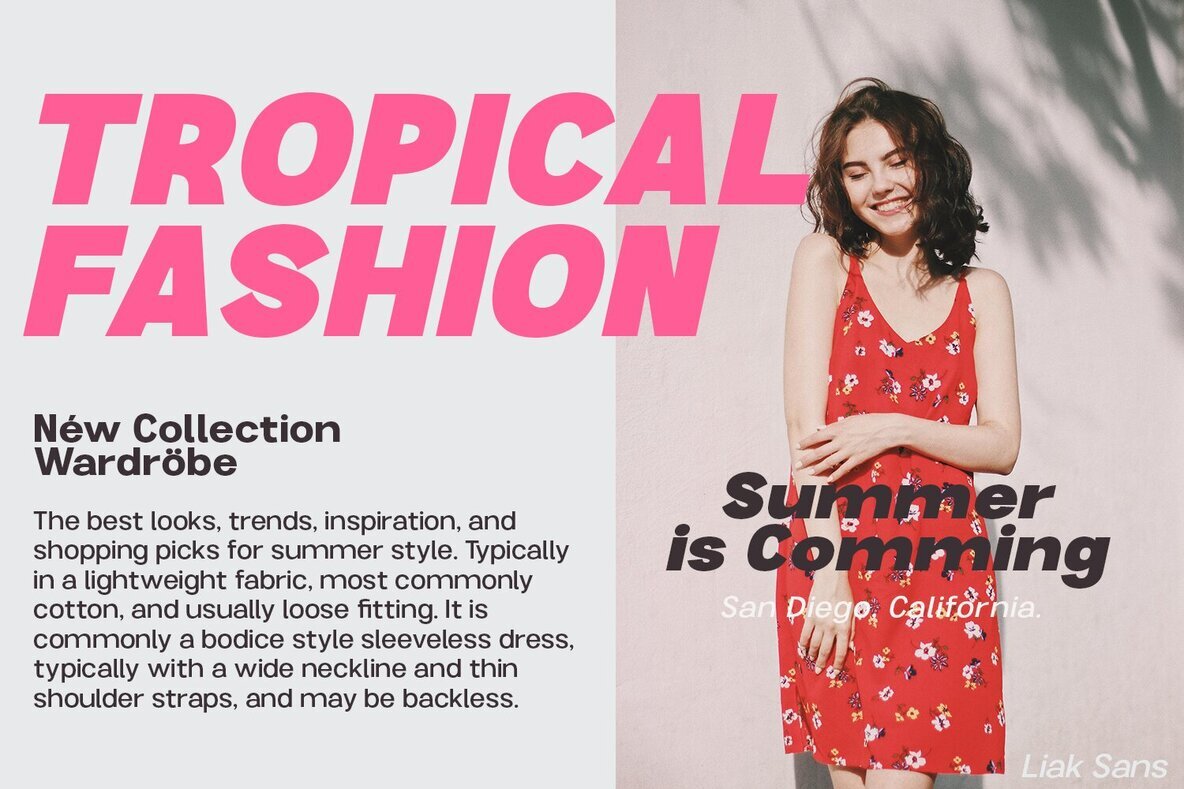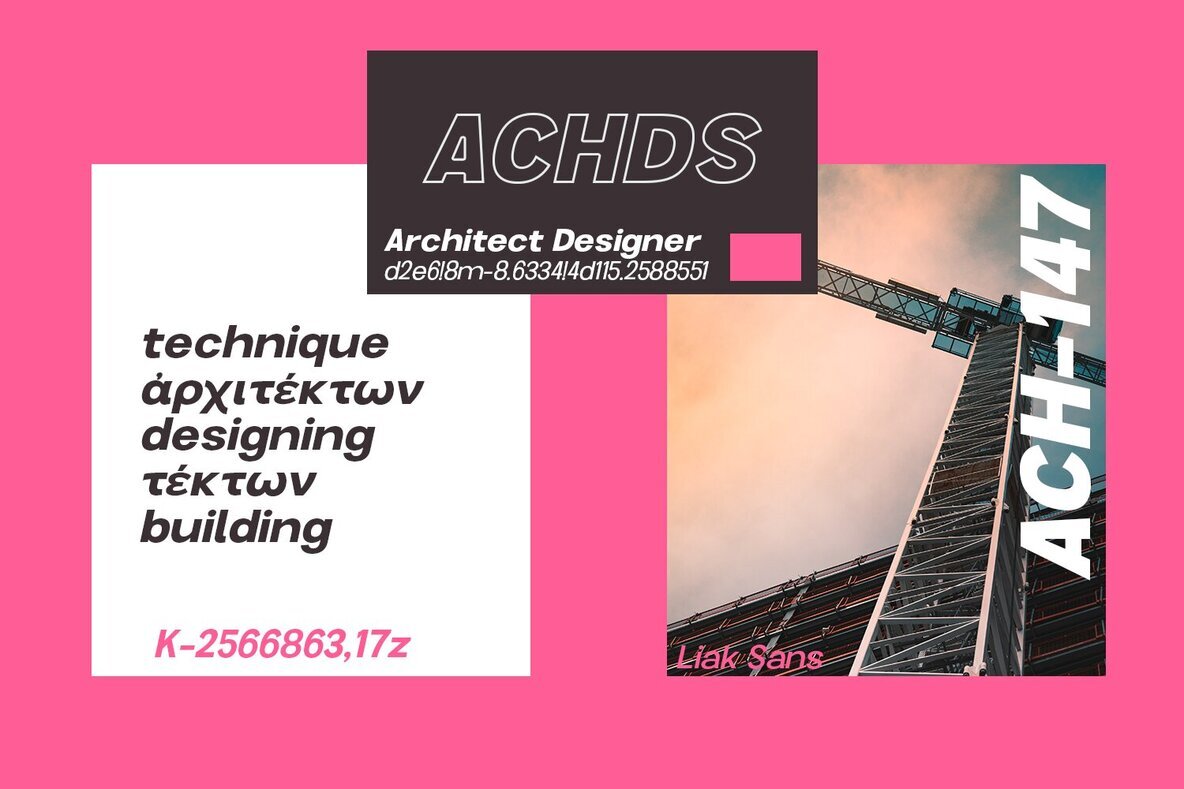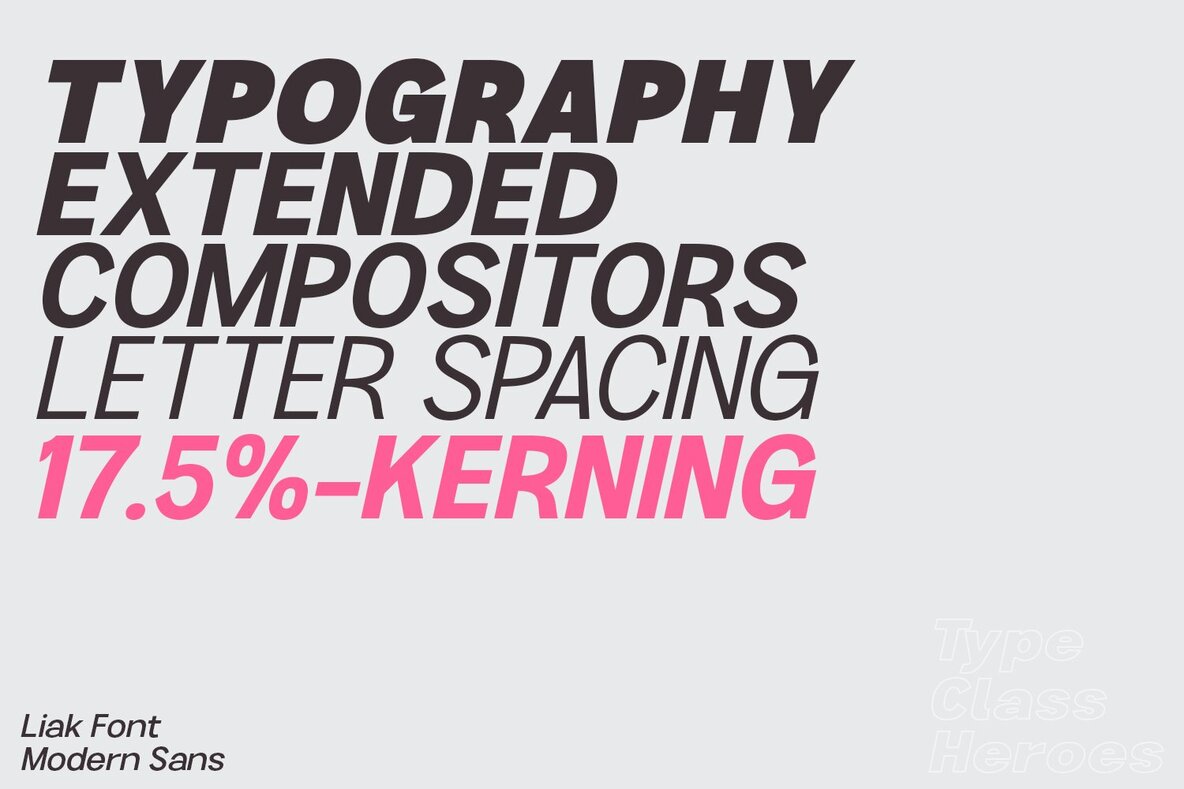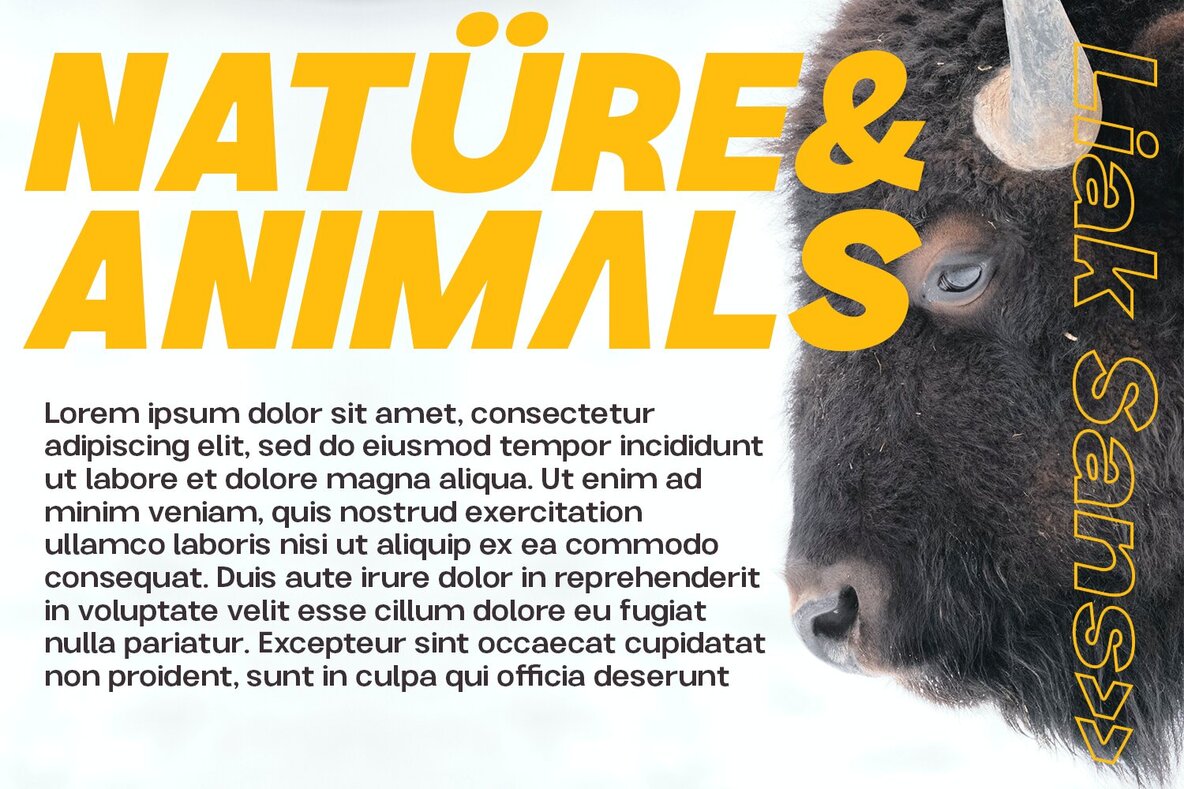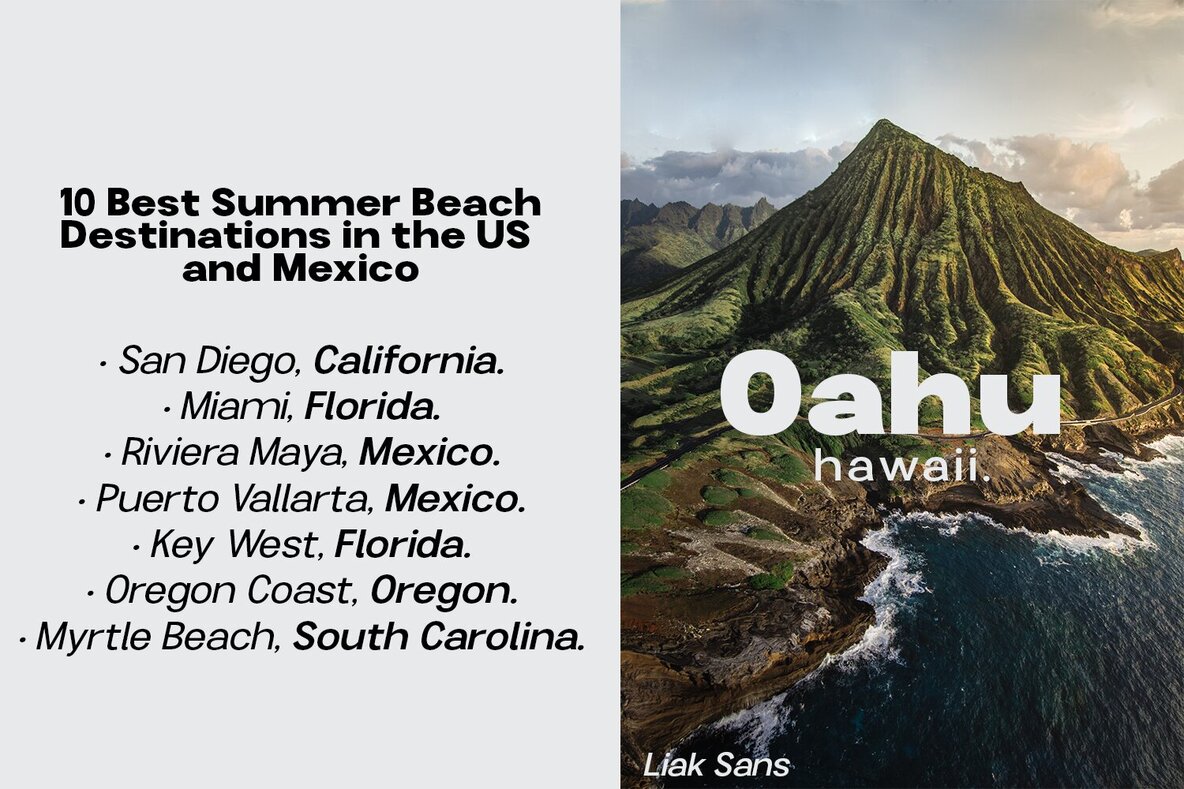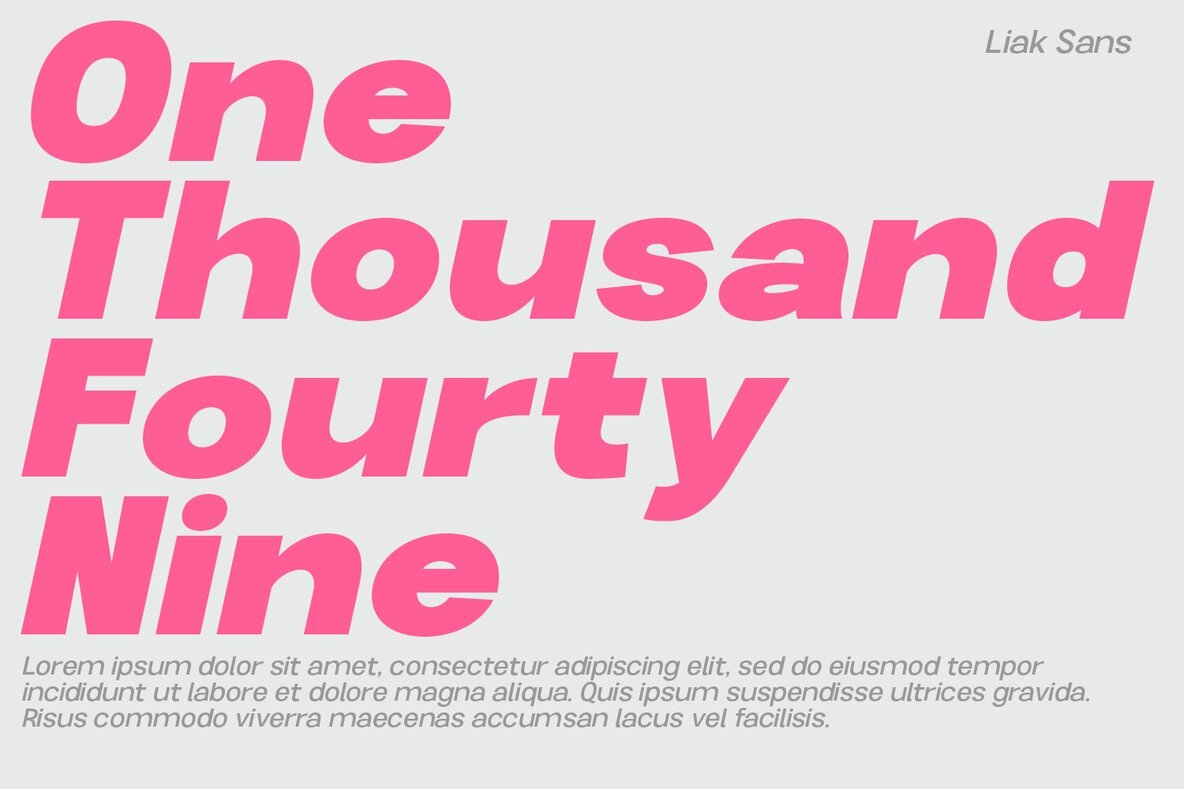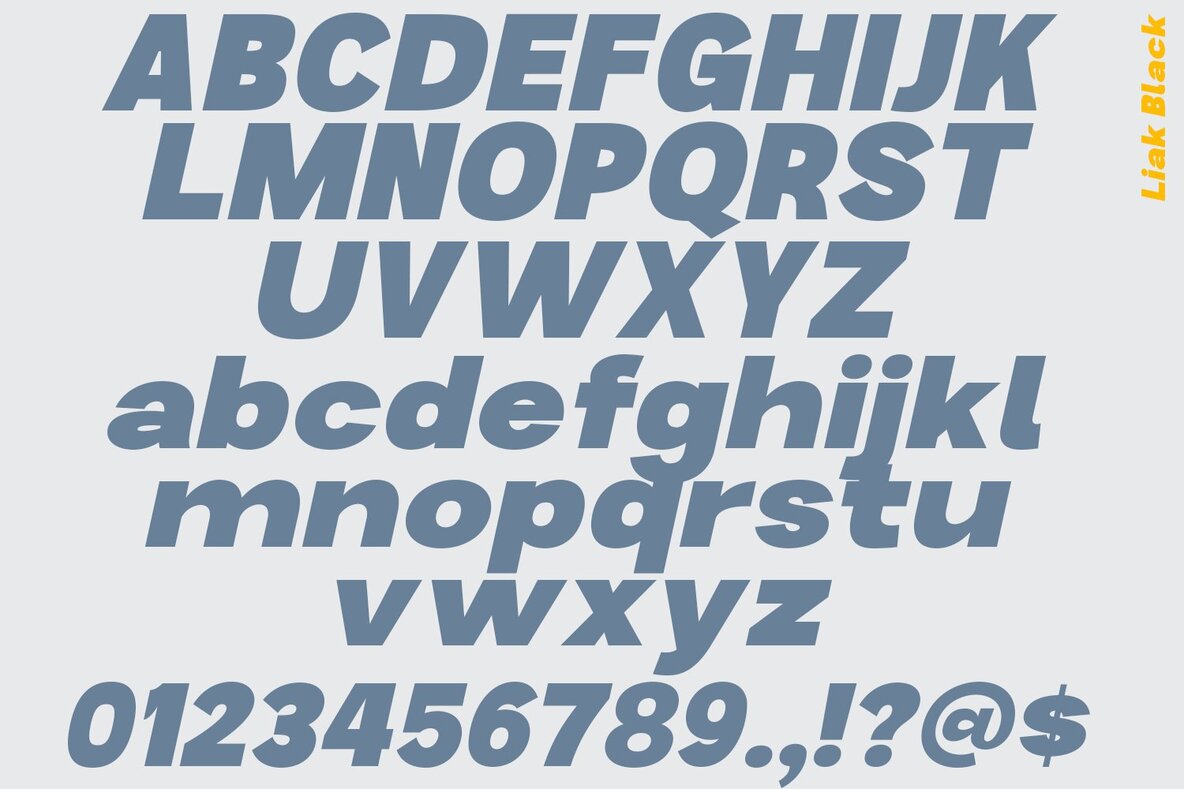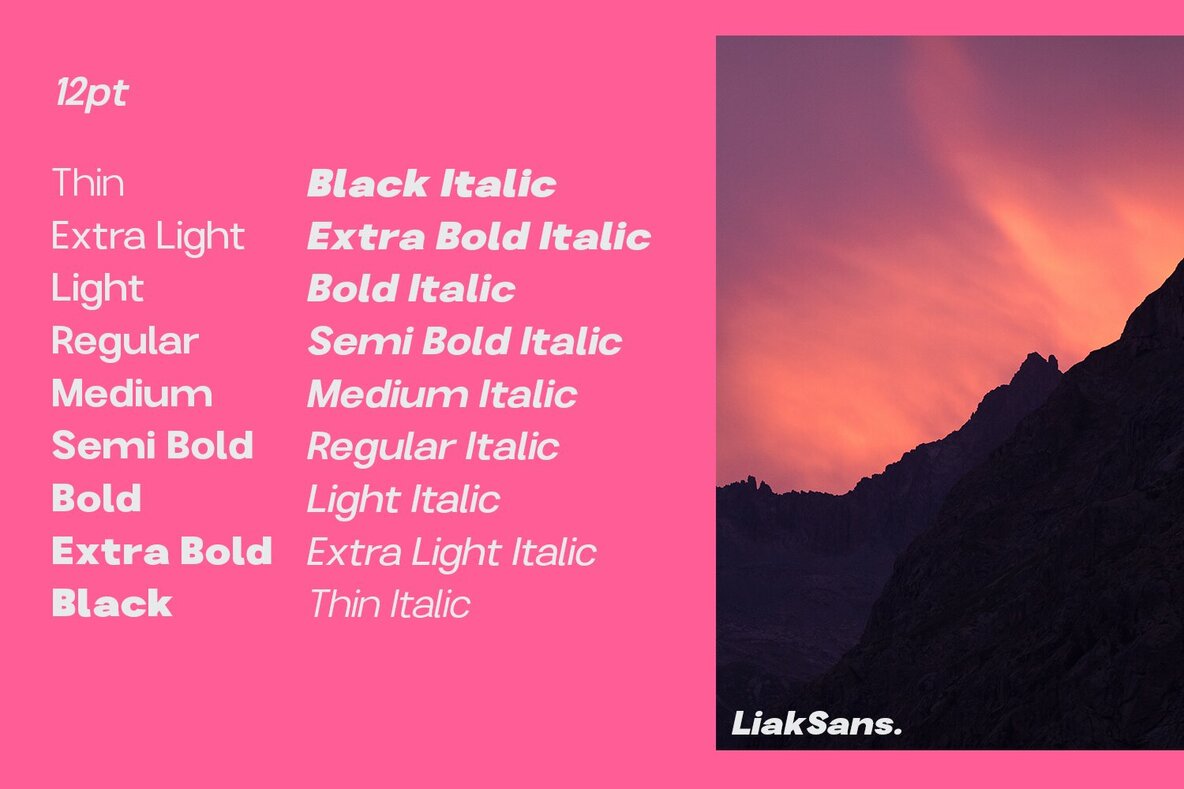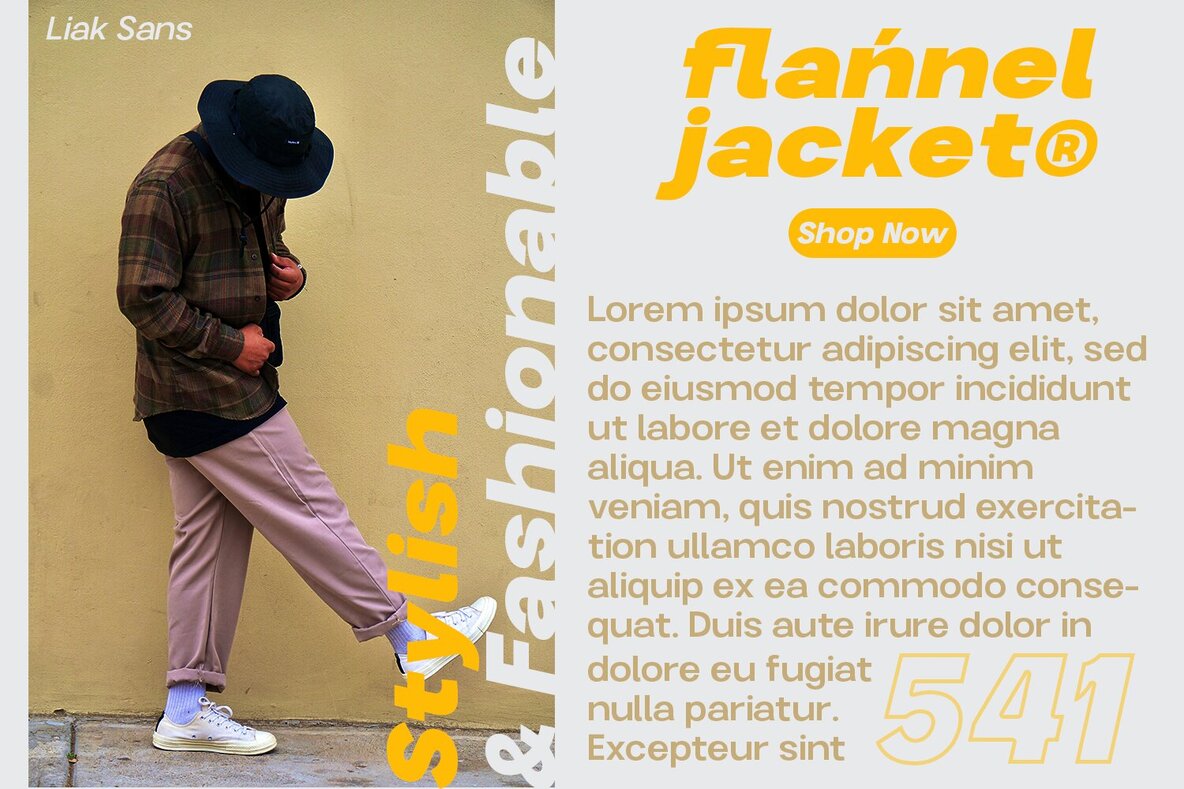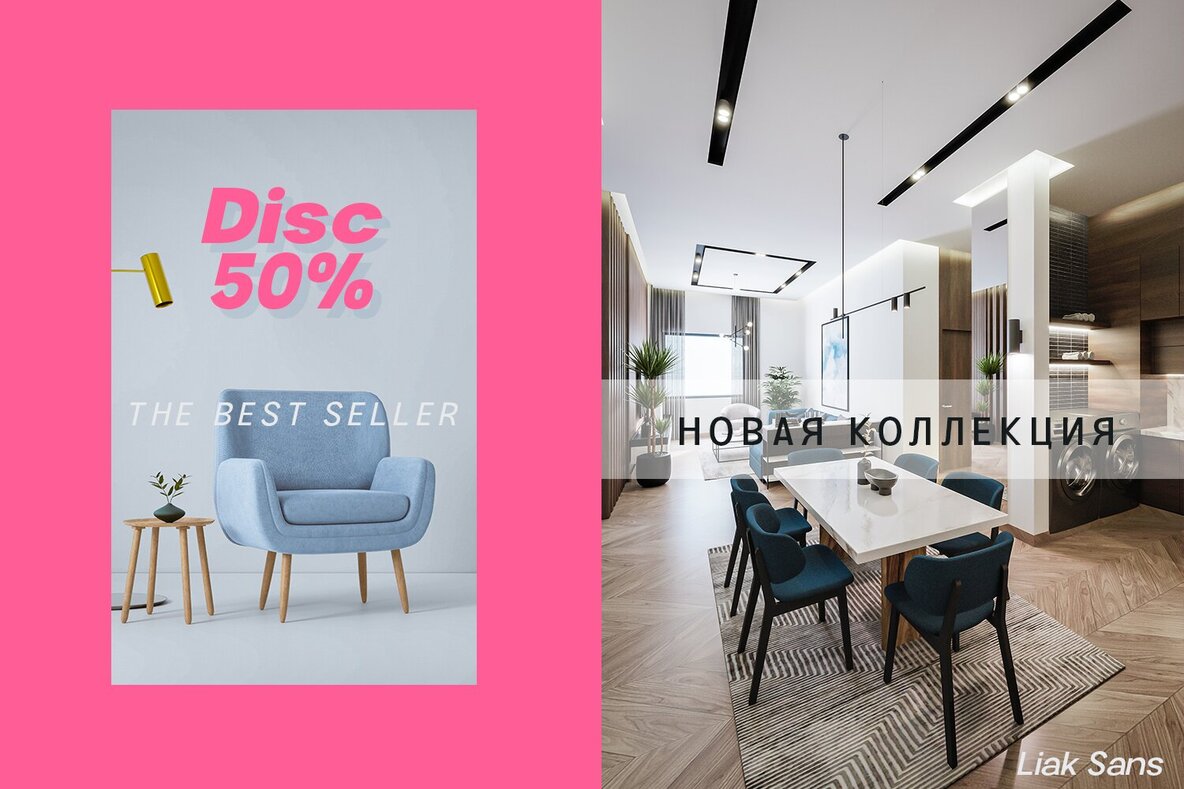
Liak Font
Introducing Liak, a versatile sans-serif font family. Designed with various widths and weights, Liak offers endless possibilities for exploring rhythm and texture in your designs, making it ideal for comfortable reading. This font supports over 100 Latin-based languages and features extensive Cyrillic and Greek support, making it perfect for languages such as Russian, Bulgarian, Ukrainian, and many others. With its variable version, Liak offers multiple options for design, allowing you to adapt it to various composition solutions and create unique designs that stand out.